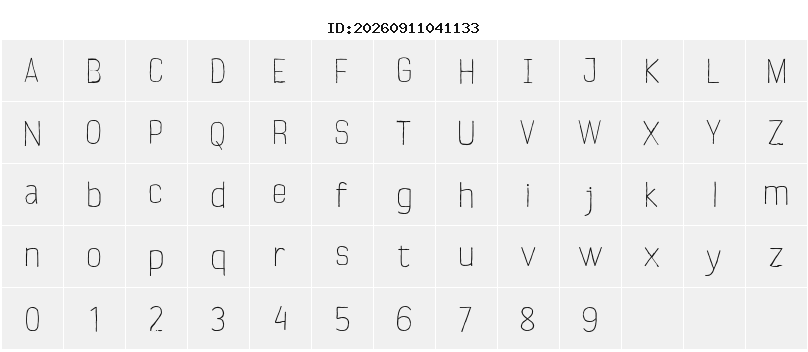
Verano Preview
• Font Name: Verano
• Full Font Name: Verano
• PostScript Name: Verano
• Manufacturer: Joan Alegret
About Verano.otf
Verano.otf is a modern, elegant sans-serif font designed for ultimate readability and visual harmony. Perfect for branding, headlines, web design, and print materials.